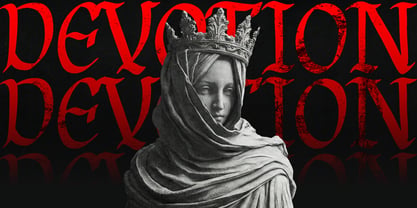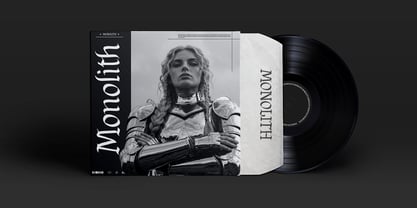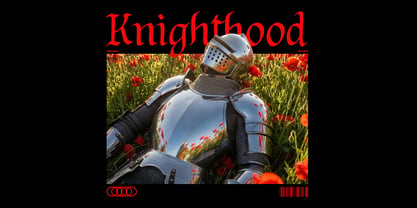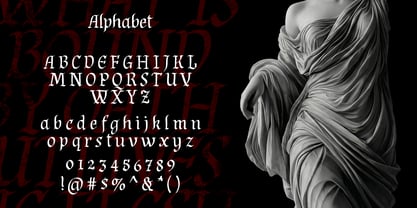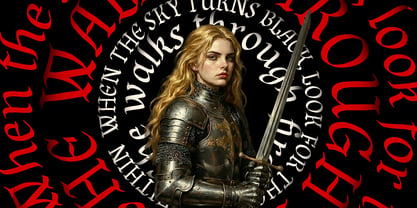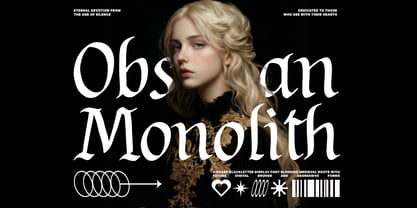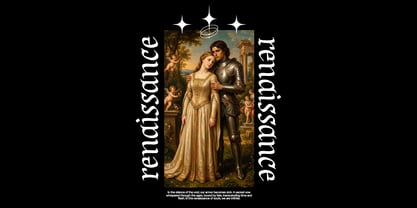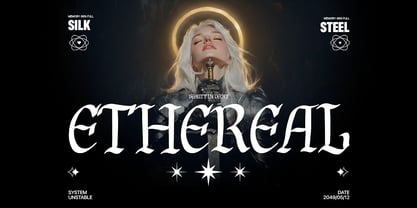
Obsidian Monolith
The Obsidian Monolith Font Family was designed by Dmitrii Chirkov and published by Supfonts. Obsidian Monolith contains 1 styles. More about this family
Obsidian Monolith is a neo-medieval romance display font with a hand-cut, imperfect rhythm that instantly looks “editorial.” Think modern fantasy, dark romance, and high-fashion energy: bold titles, album covers, posters, book covers, branding, and merch that needs a timeless, dramatic hit in one word. It thrives big, pairs beautifully with photography and classical art, and turns any layout into a statement.